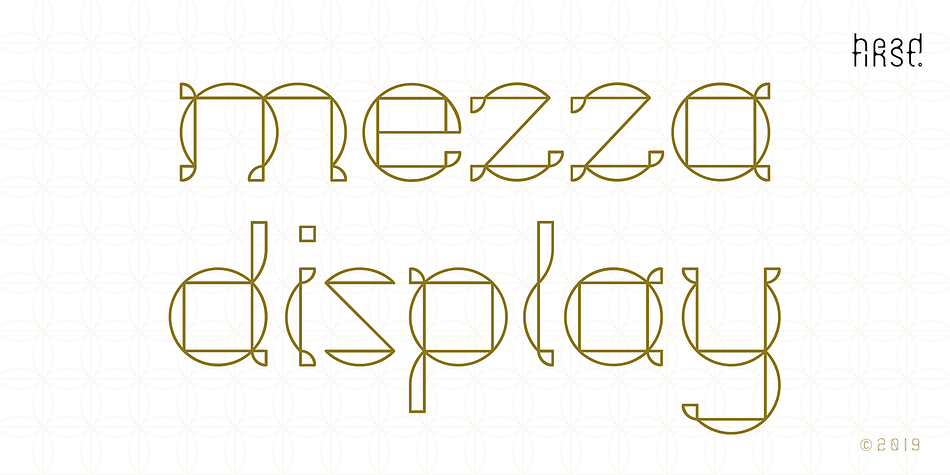
Mezza
Designed by Morice Kastoun, Mezza is a display sans and novelty font published by HeadFirst.
Mezza Display takes its inspiration from arabesque geometric patterns, generating rhythmic linear patterns of scrolling and interlacing lines to create unique and beautiful letter-forms, meticulously crafted with sophistication & grace that delivers modernity.